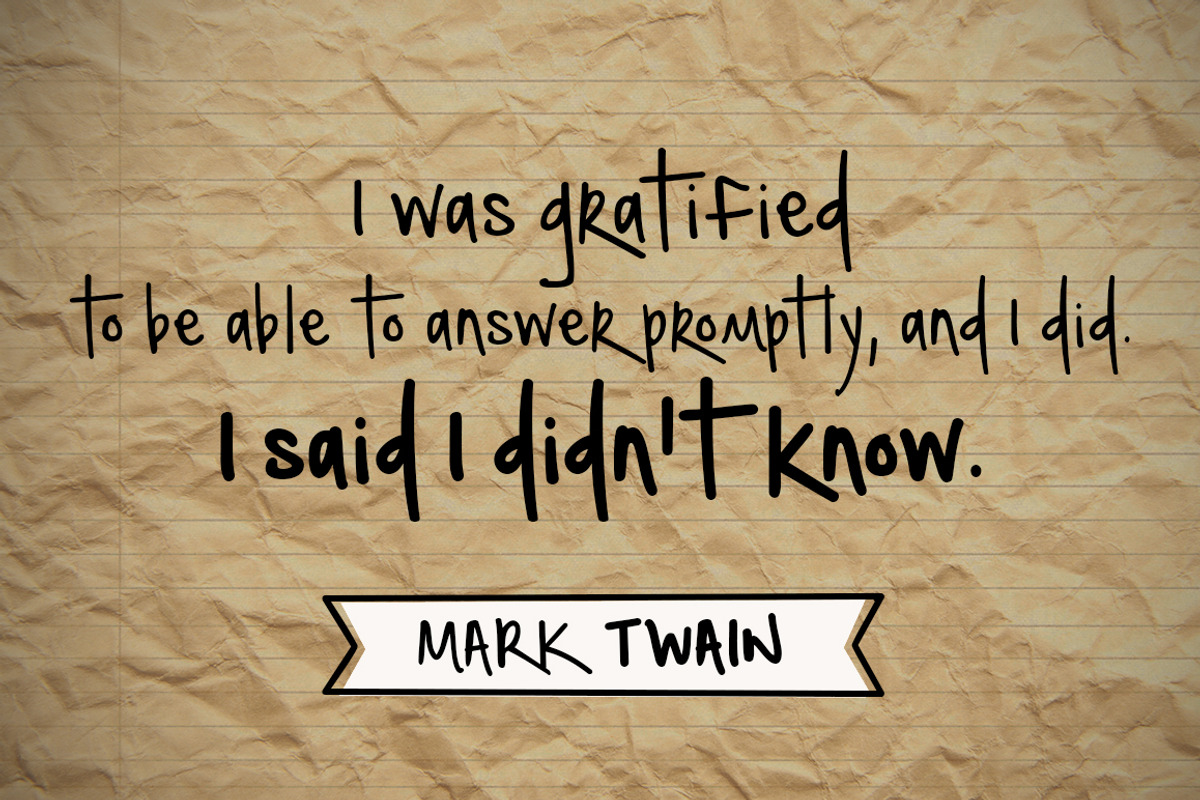
Notepaper Airplanes Font Family
Notepaper Airplanes Font Family by Brittney Murphy Design is a font selected for branding, posters, packaging, typography.
- Comes with a fun extras font with arrows, icons, banners, and more!
Why Notepaper Airplanes Font Family is worth a look
Notepaper Airplanes Font Family by Brittney Murphy Design fits naturally into Branding, posters, packaging, typography.